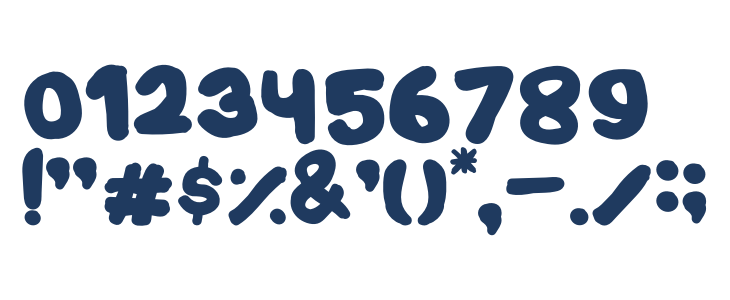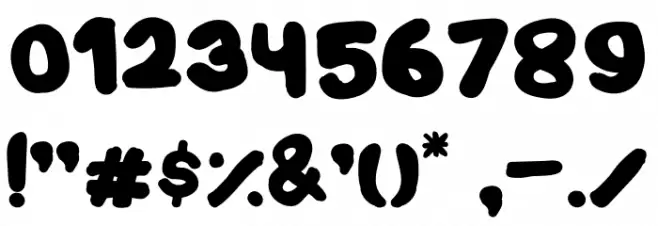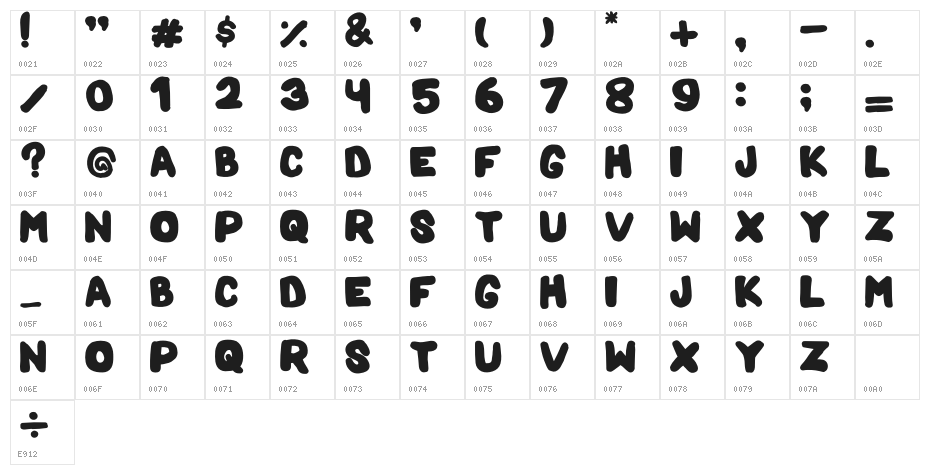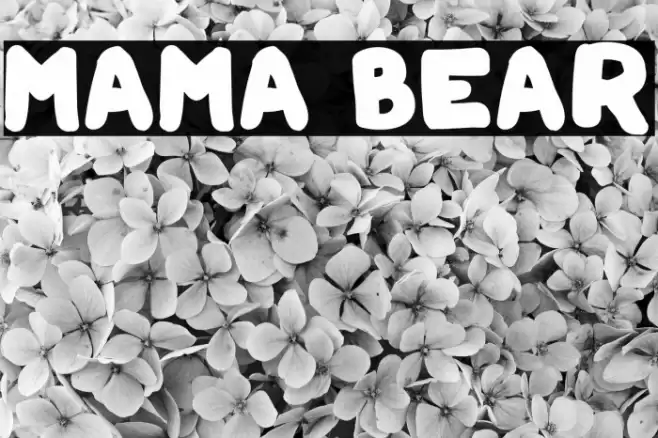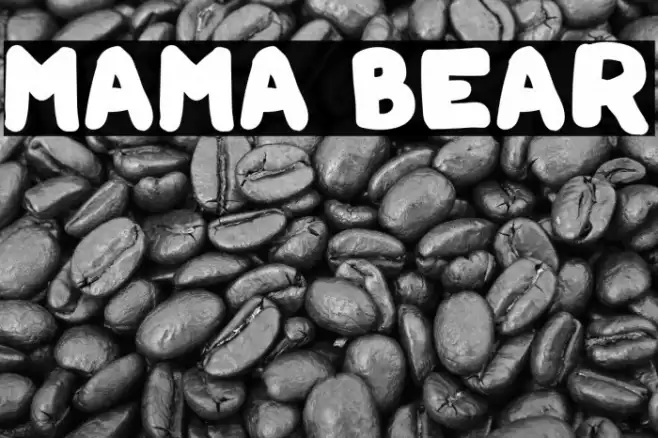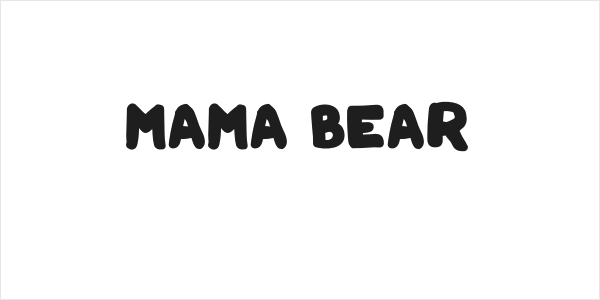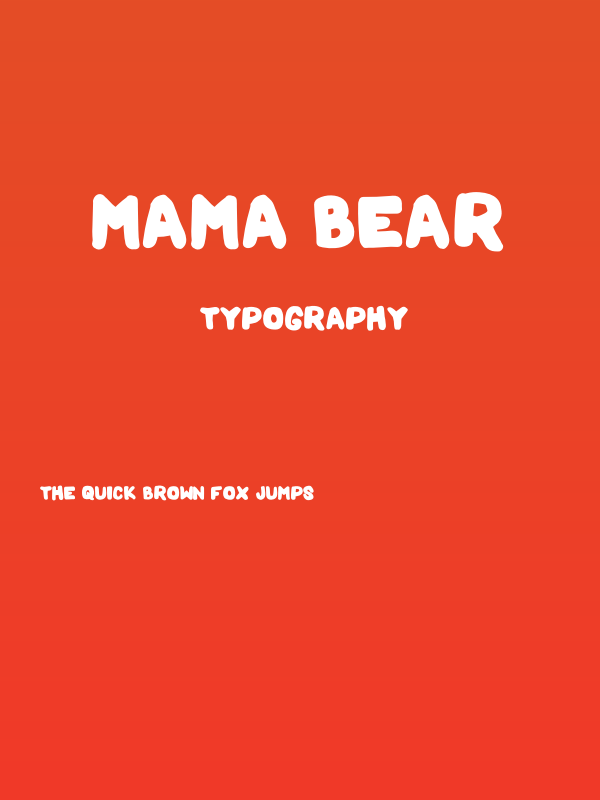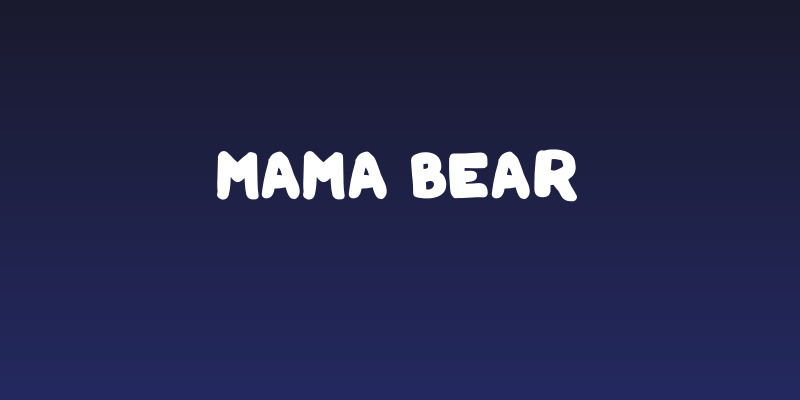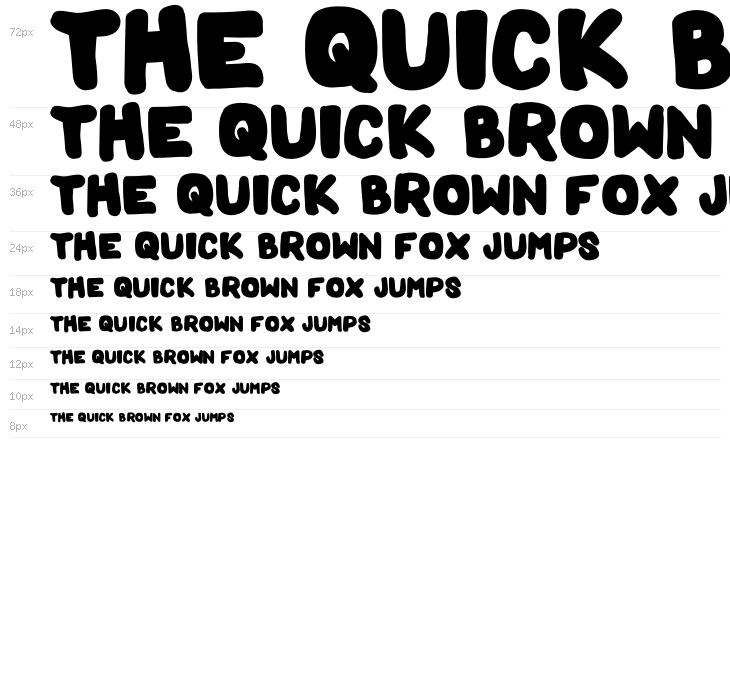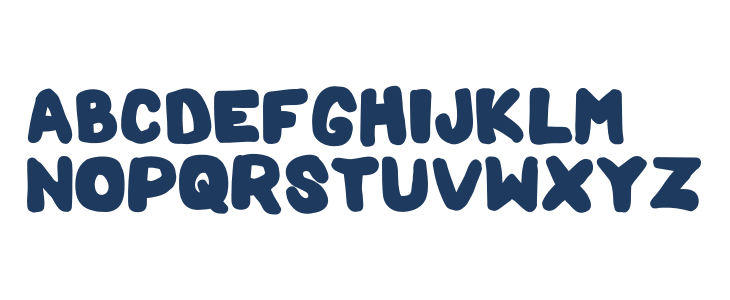
Mama Bear Font
Mama Bear Description
This font features a playful and bold design, characterized by its thick, rounded strokes and a slightly irregular shape that gives it a hand-drawn appearance. The letters are uniformly bold, creating a strong visual impact, while the rounded edges add a friendly and approachable feel. The numbers and special characters maintain this consistent style, ensuring a cohesive look across all elements. The overall design is reminiscent of a child's handwriting or a playful cartoon style, making it ideal for projects that require a fun and informal touch.
| Overall Style | Playful, Hand-drawn |
| Proposed Projects | Ideal for children's books, playful branding, party invitations, and any project that requires a fun, informal touch. |